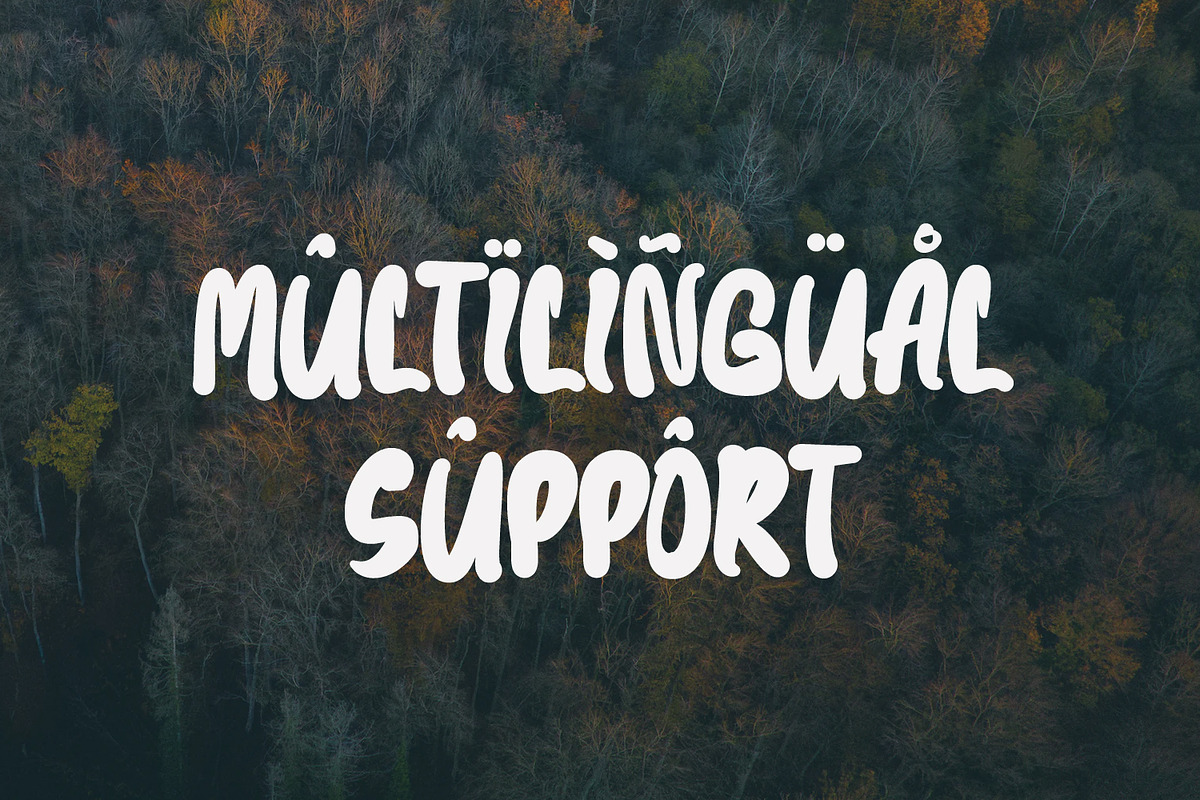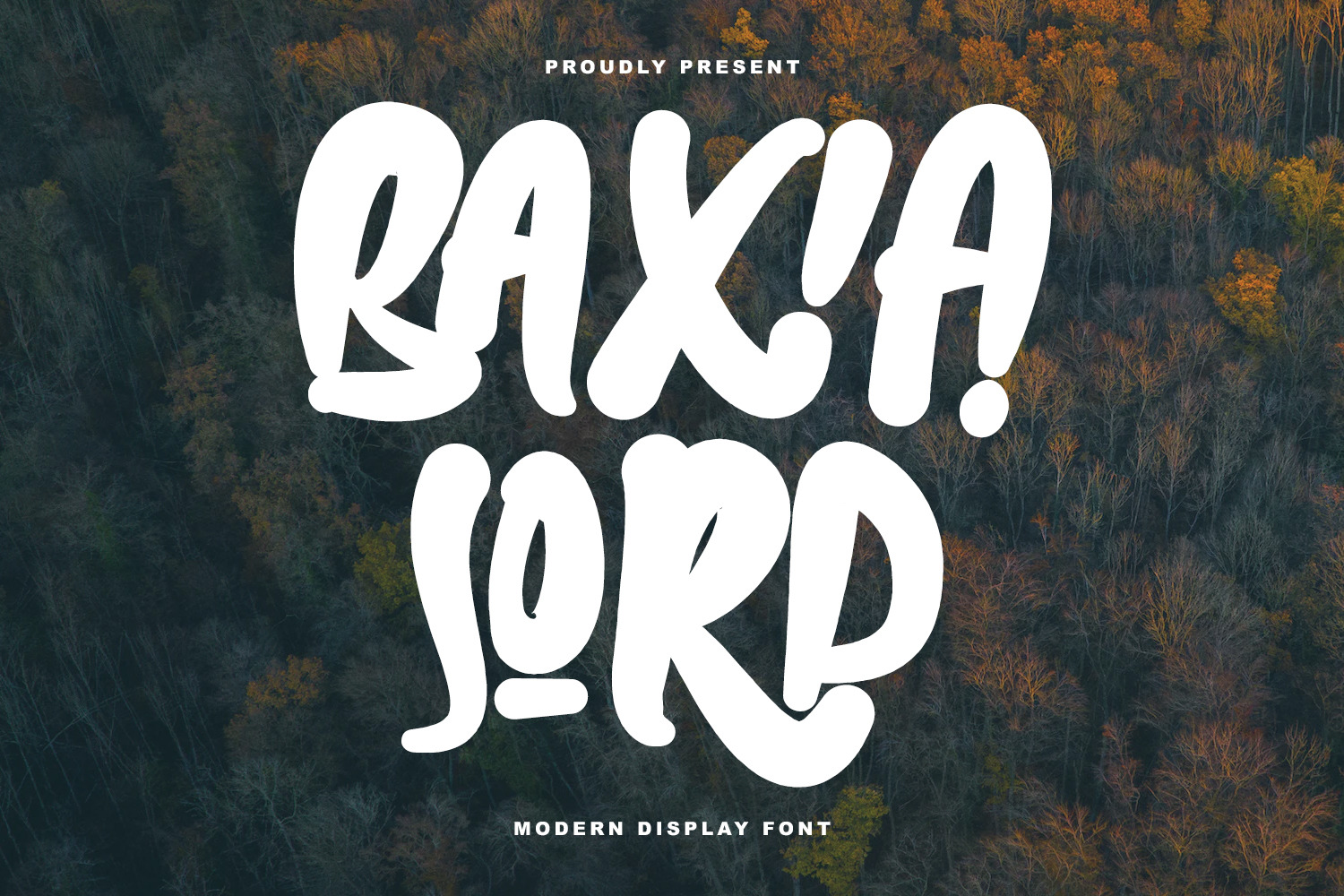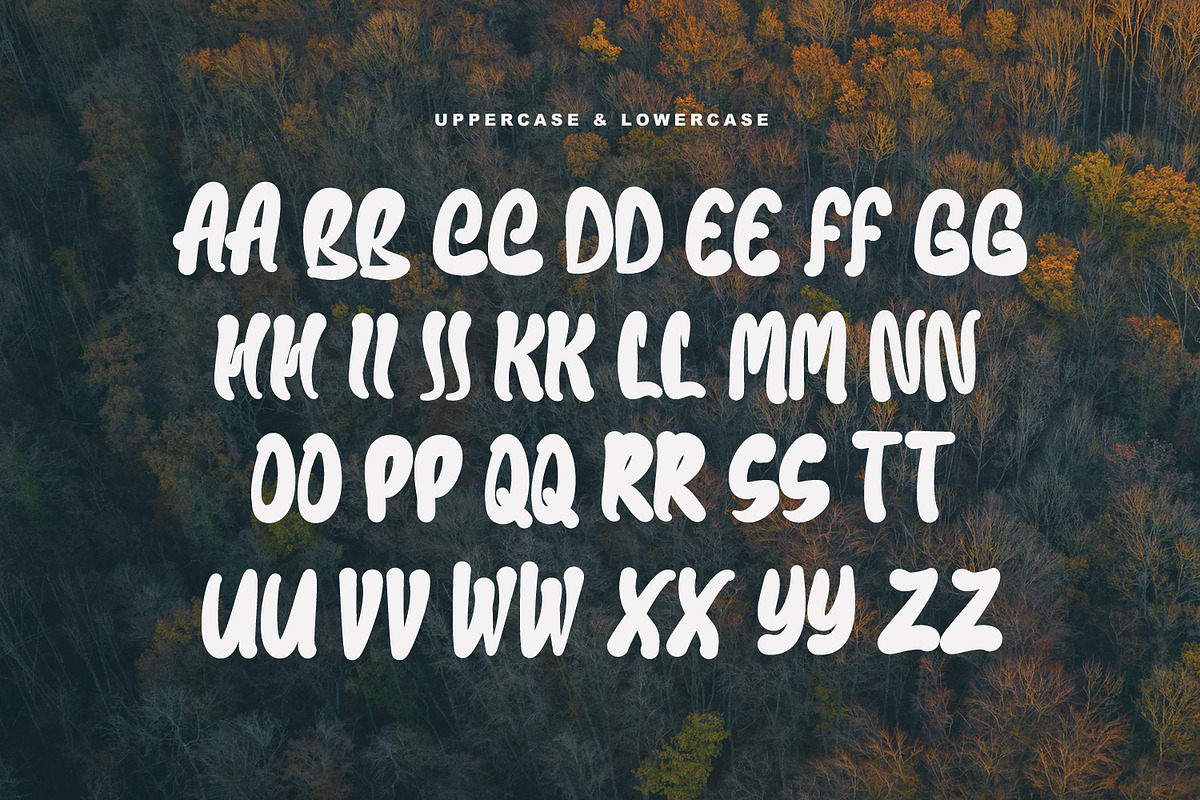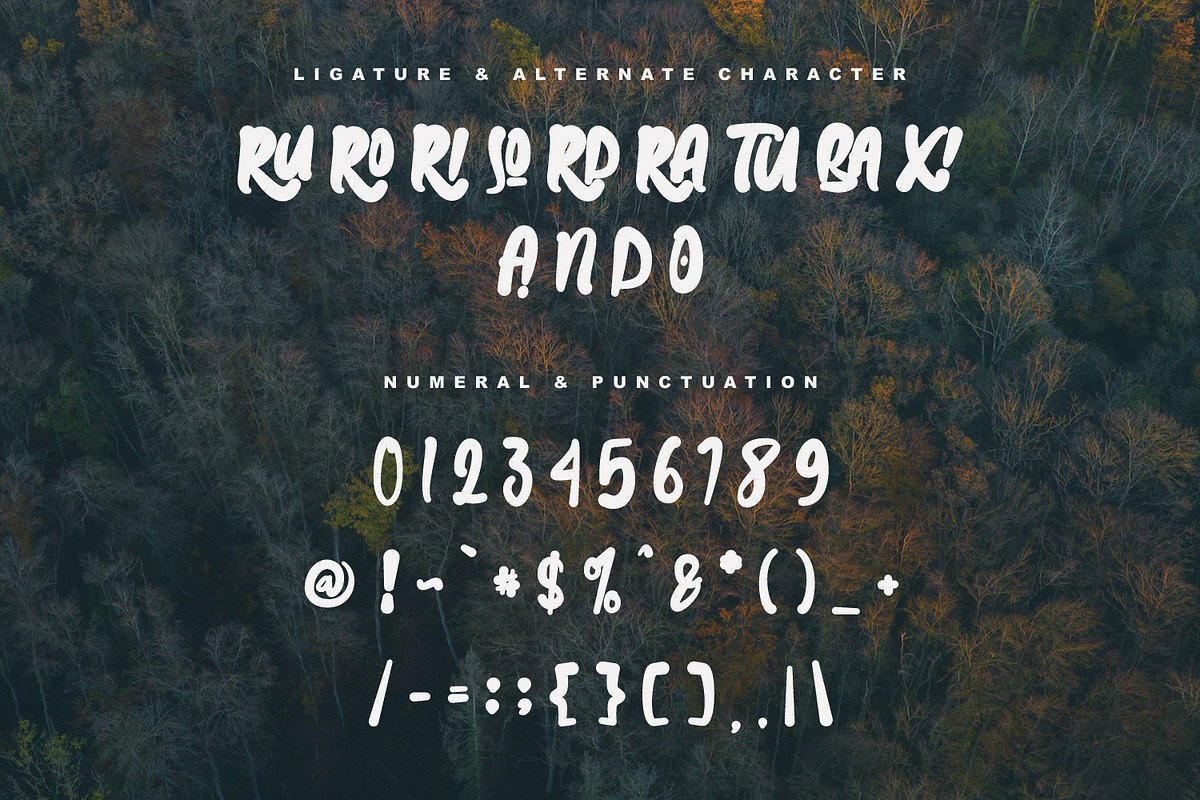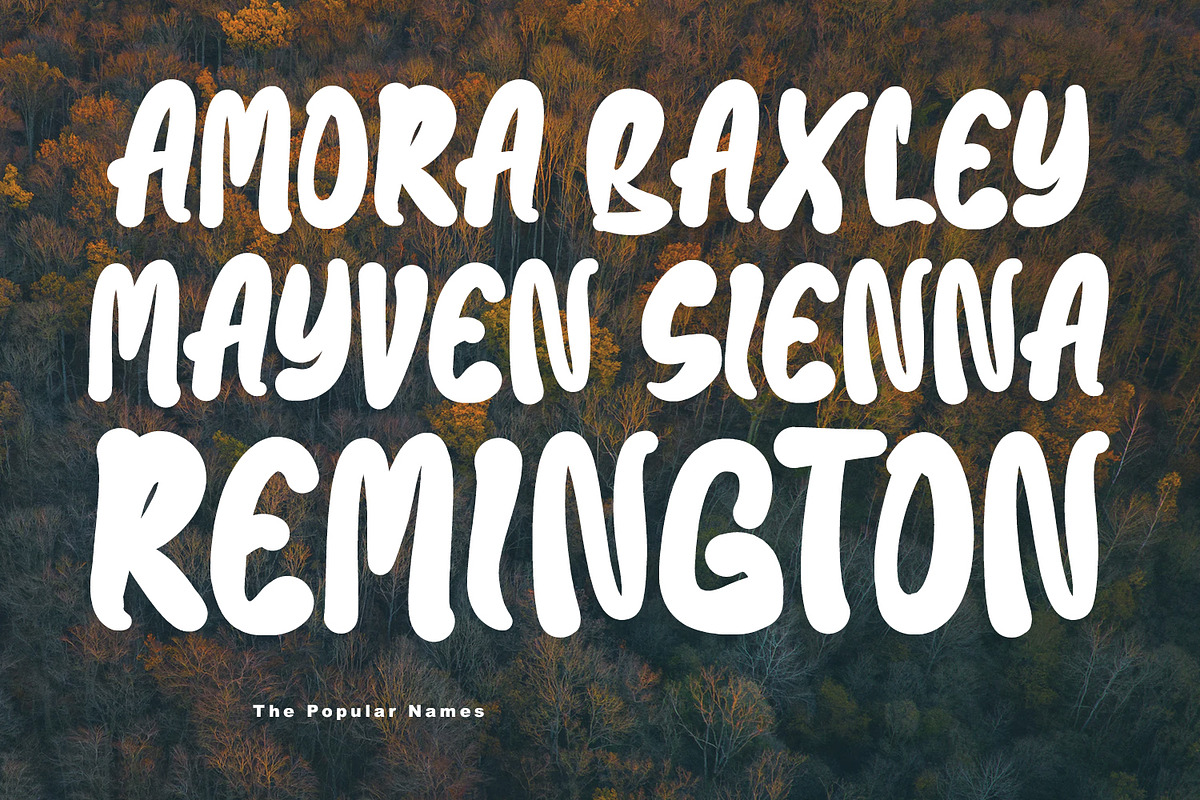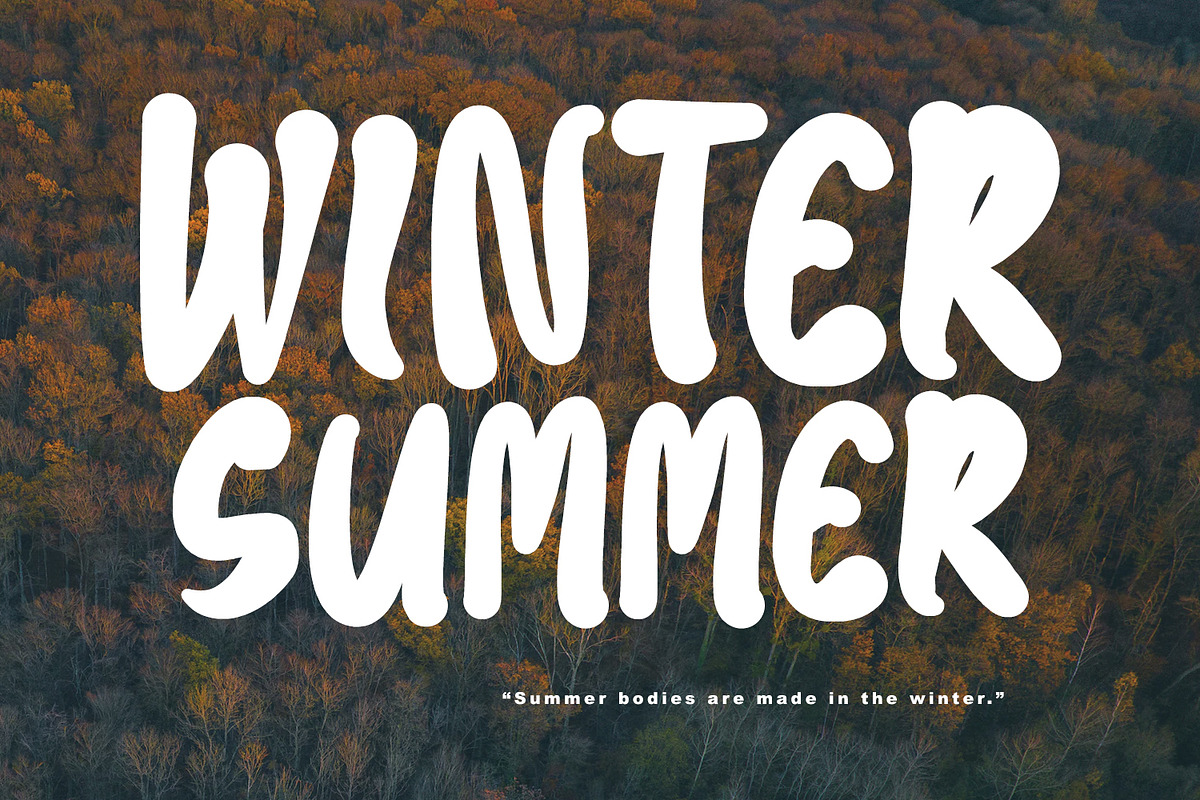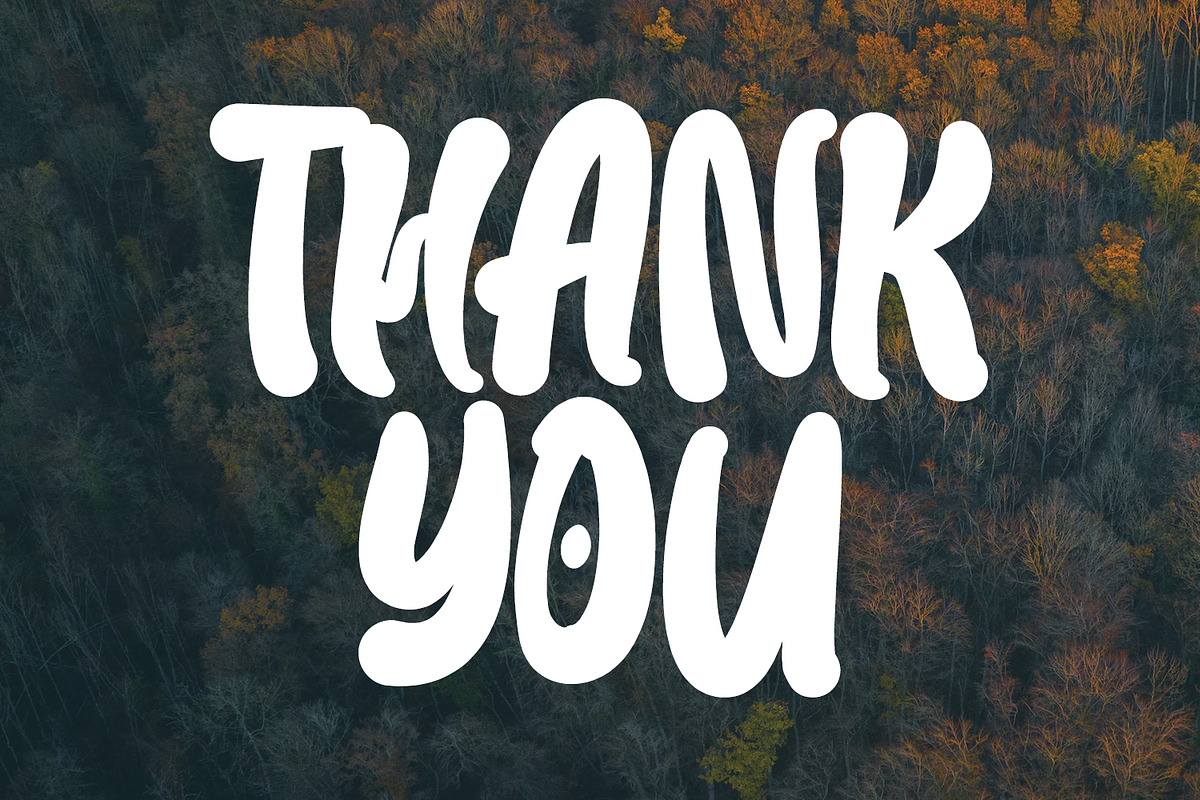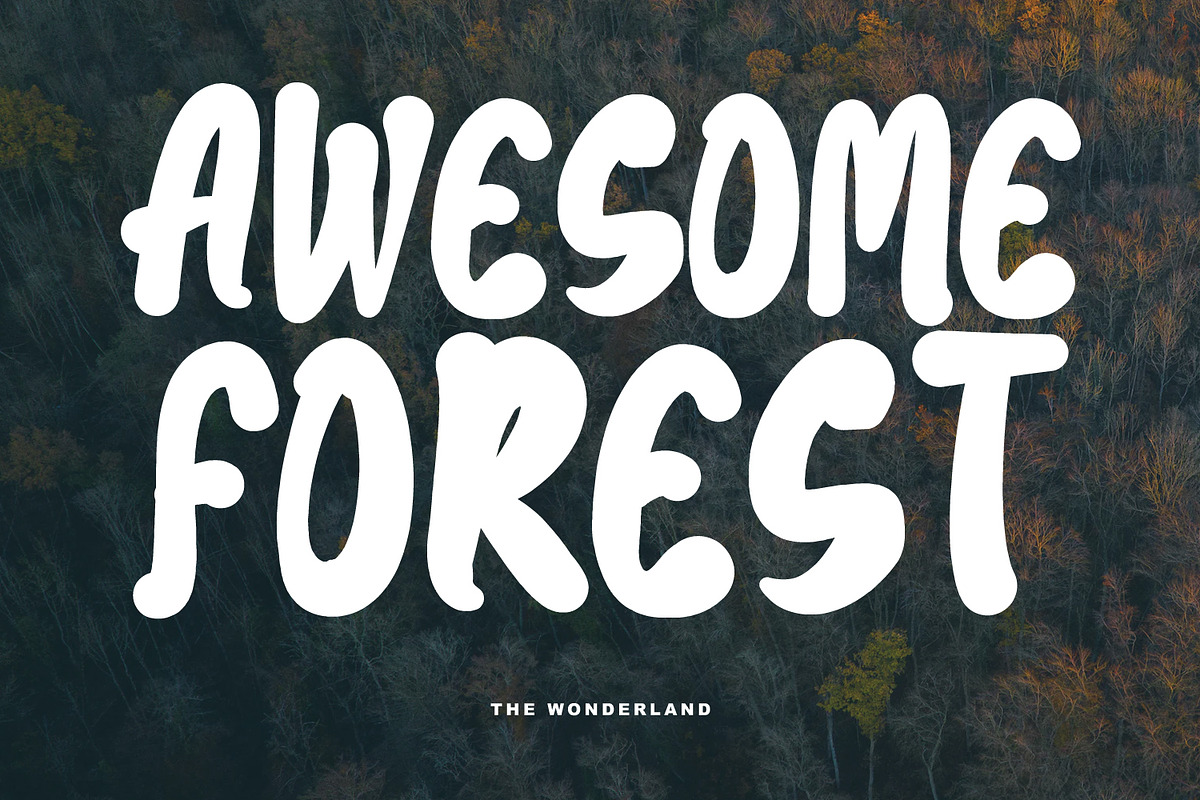
Baxia Jord Modern Display Font
Baxia Jord Modern Display Font. Bold stroke, fun character with a bit of ligatures and alternates. To give you an extra creative work. Baxia Jord Modern Display Font support multilingual more than 100+ language. This font is good for logo design, Social media, Movie Titles, Books Titles, a short text even a long text letter and good for your secondary text font with script or serif. Make a stunning work with Baxia Jord Modern Display Font.